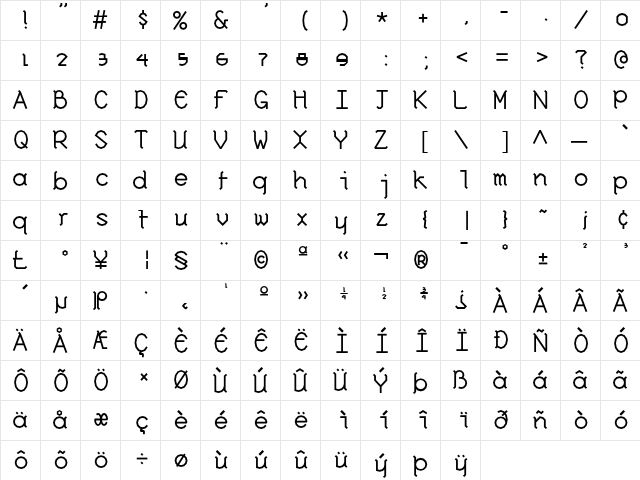
2PTK675 Regular
Design Context for 2PTK675 Typeface
2PTK675 is a composed and adaptable typeface that performs quietly and consistently across a wide range of design contexts.